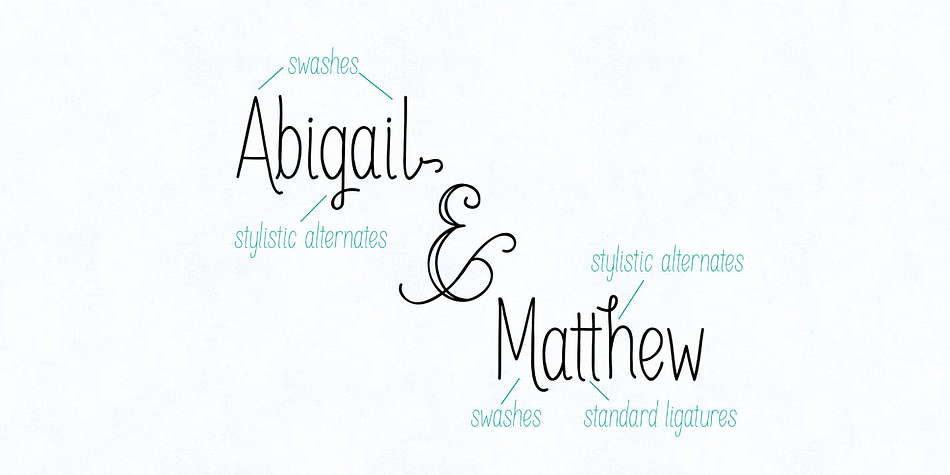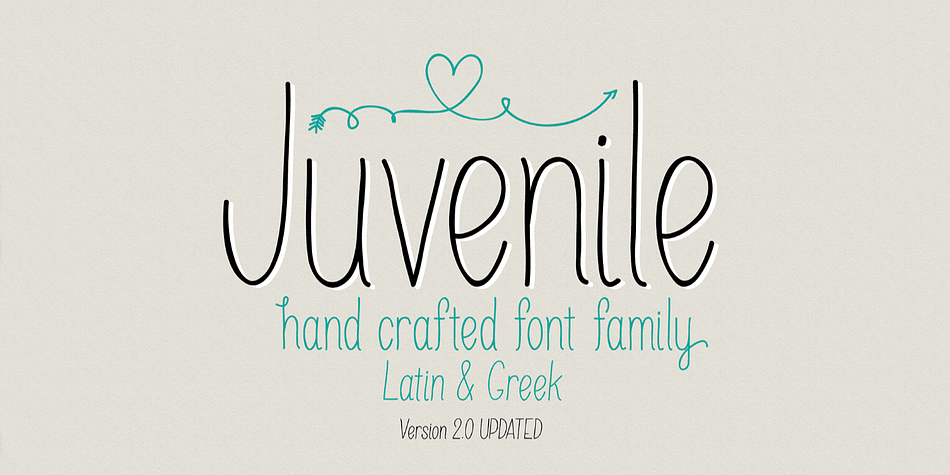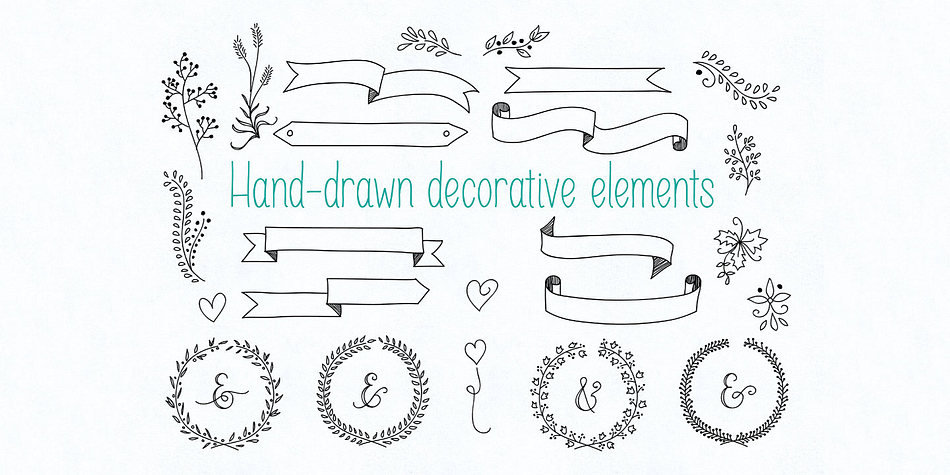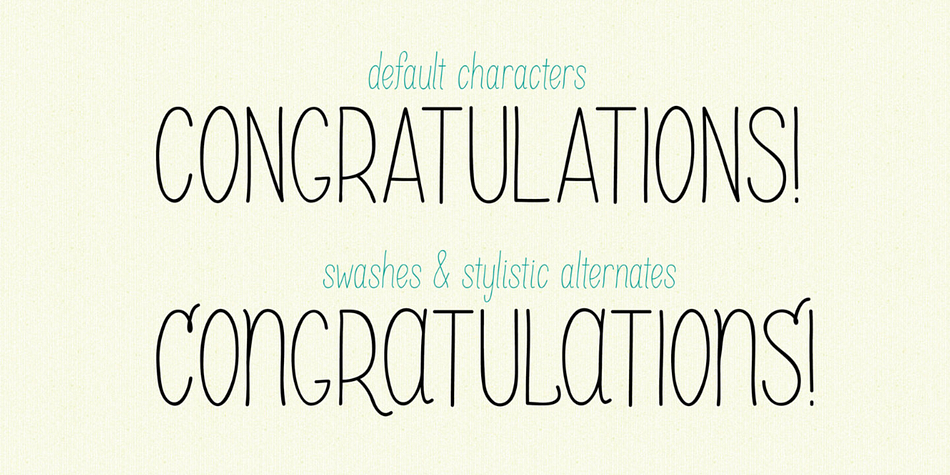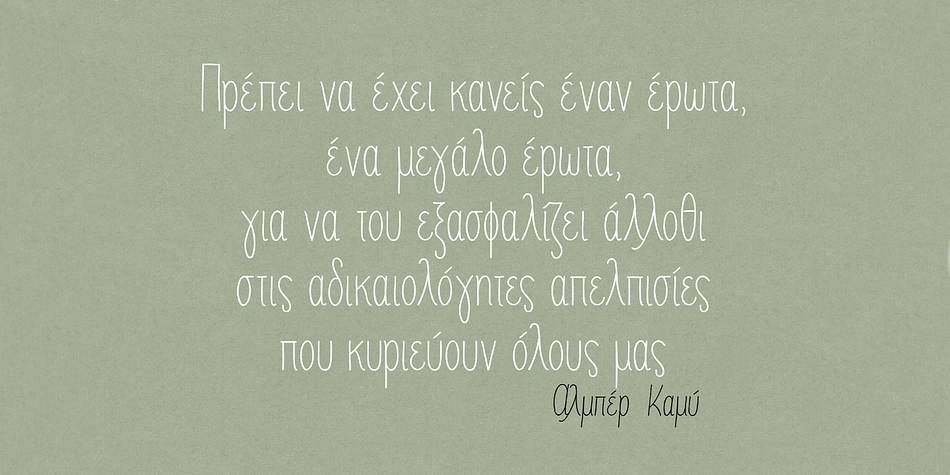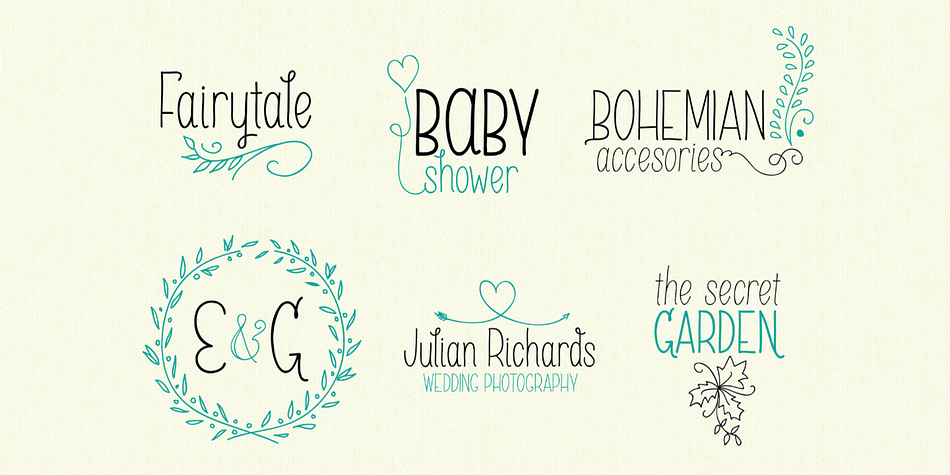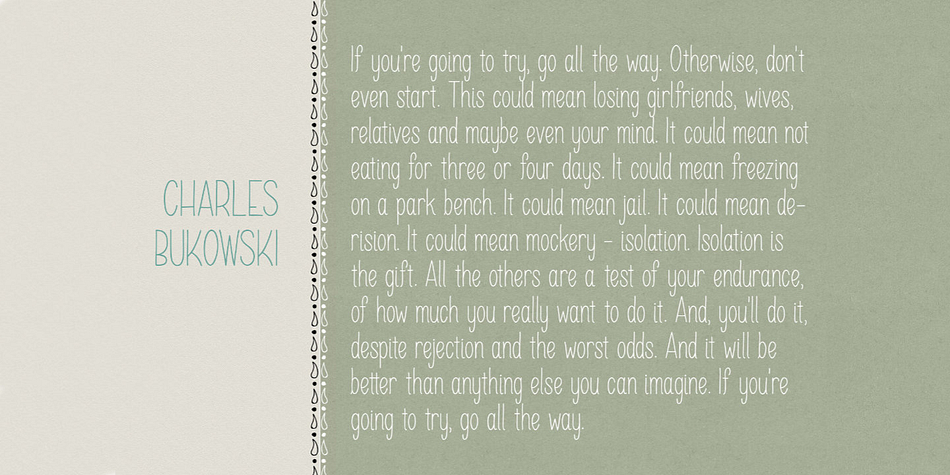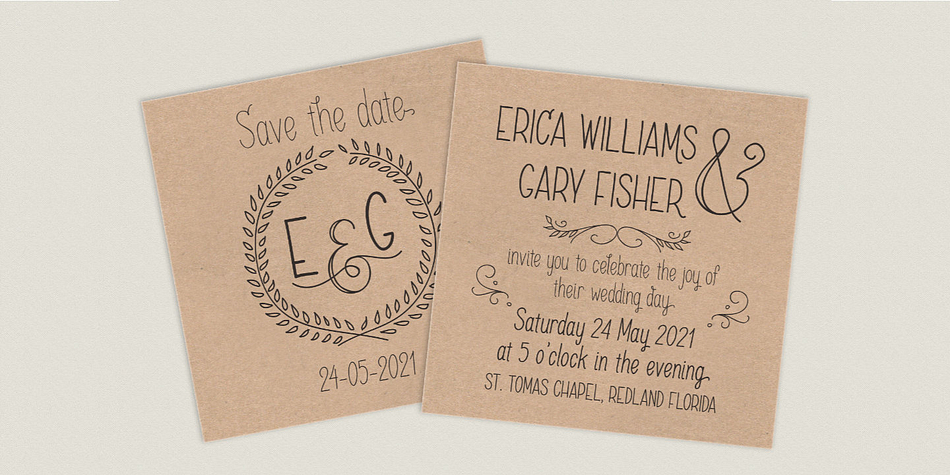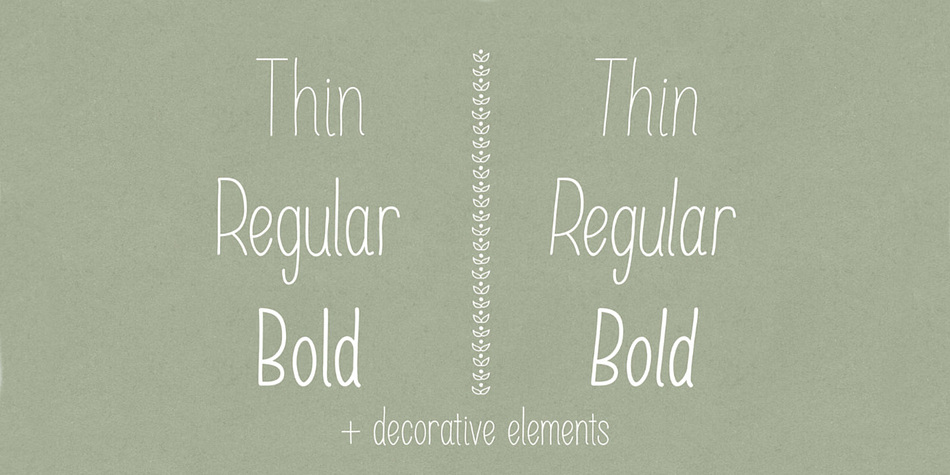
Designed by Anastasia Dimitriadi, Juvenile is a hand drawn and dingbat font family. This typeface has seven styles and was published by DimitriAna.
Juvenile is a hand drawn fresh and playful typeface, offered in a variety of weights and special characters, and matches perfectly with 52 decorative elements. It is suitable for different applications such as logos, stationery design, invitations, labels, merchandise products, etc.
It contains 734 glyphs with standard ligatures, stylistic alternates and swashes. It supports Central, Eastern, Western European, Baltic, Turkish and Greek languages and delivered in Opentype and Truetype format.